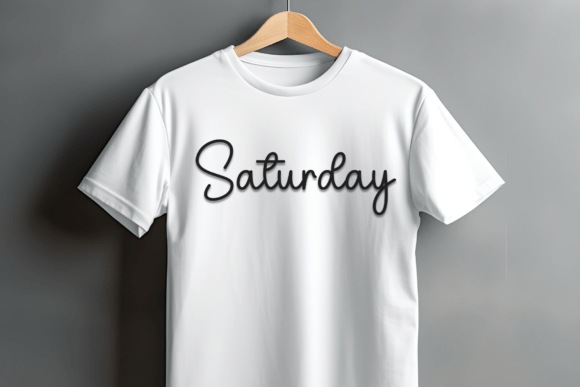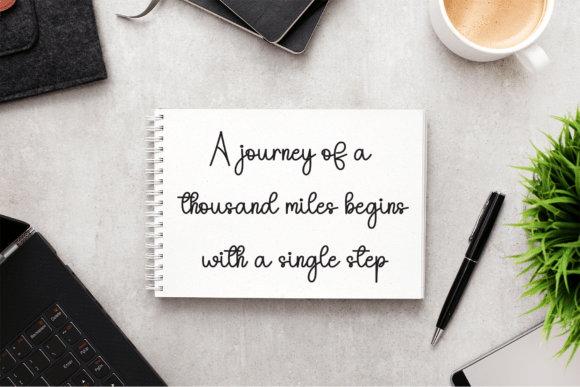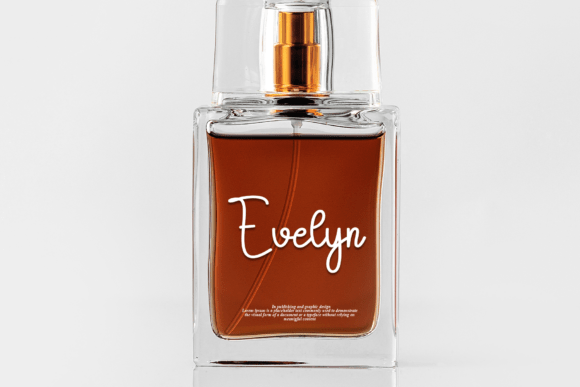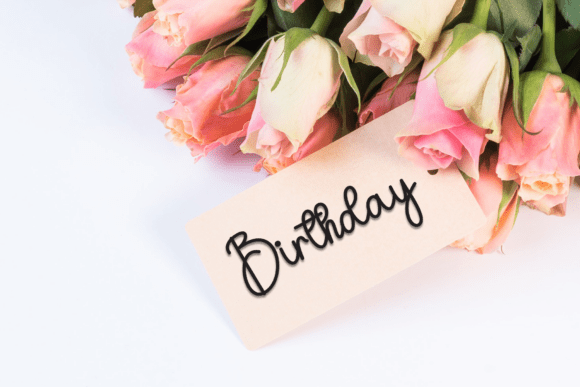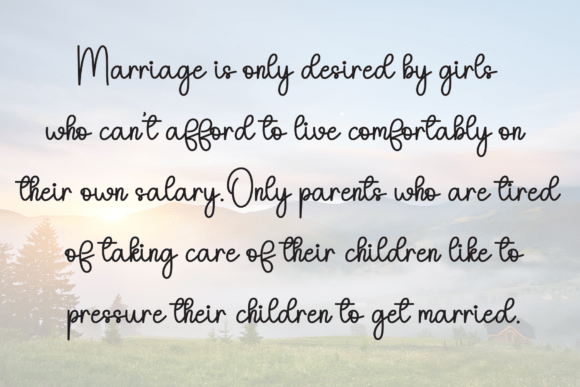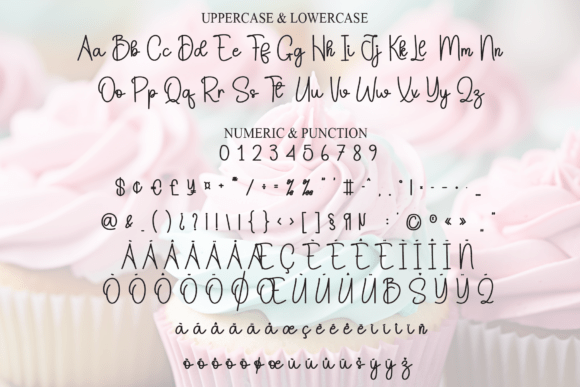
The Sweet Taste of Typography: Introducing Cupcake Font
You know that moment when you’re brainstorming a new project, and a spark of creativity hits you? Maybe it’s a late-night coffee, a burst of inspiration, or simply a dash of excitement. Whatever the catalyst, it’s the moment when everything comes together – and that’s exactly what happens when you pair the right typography with your vision. For designers, finding the perfect font can be the difference between a bland, forgettable design and a stunning masterpiece that leaves a lasting impression.
Enter Cupcake Font, a charming handwritten script that brings a touch of elegance and sophistication to any project. This versatile typeface is perfect for branding, invitations, and social media, adding a personal, refined touch with effortless charm. Whether you’re a seasoned pro or a budding designer, Cupcake Font is a valuable addition to your toolkit, offering a unique blend of style and substance that’s sure to delight your audience.
Cupcake Font Key Features
- Font Family: Cupcake Font is a unique, handwritten font designed to resemble handwritten icing on cupcakes.
- Character Set: Cupcake Font includes a wide range of characters, including uppercase and lowercase letters, numbers, and special characters, making it suitable for various design applications.
- Unique Characteristics: Cupcake Font features a playful, whimsical feel with varying line widths and flourishes, making it perfect for adding a touch of personality to designs.
Cupcake Font Review
I recently had the chance to work with the Cupcake Font, and I must say it’s a delightful addition to any project. Here’s my honest review:
- The font’s playful and whimsical feel is perfect for baking-themed projects, kids’ content, or any project that needs a touch of sweetness.
- The font is highly legible, even at smaller sizes, making it ideal for use in body text or headings.
- The font’s unique character set includes a wide range of punctuation and special characters, which is a nice touch.
- The font may be too cutesy for more serious or professional projects, so use it sparingly or in context.
- The font’s irregular letterforms may cause issues with auto-layout or text tracking in certain design software.
Overall, I think the Cupcake Font is a great addition to any designer’s toolkit. While it may have some limitations, its unique charm and playful feel make it a great choice for the right project. Just be mindful of its use and potential issues in your design workflow.
Tips for Getting the Most Out of Cupcake Font
Use the Cupcake Font for whimsical and playful designs, such as invitations, party decorations, or children’s books
Combine the Cupcake Font with other design elements, such as illustrations or graphics, to create a cohesive and eye-catching design
Experiment with different font sizes, colors, and alignments to add visual interest to your design
Common Use Cases for Cupcake Font
The Cupcake Font is commonly used for:
Birthday invitations and party decorations
Children’s book illustrations and text
Food and beverage branding and marketing materials